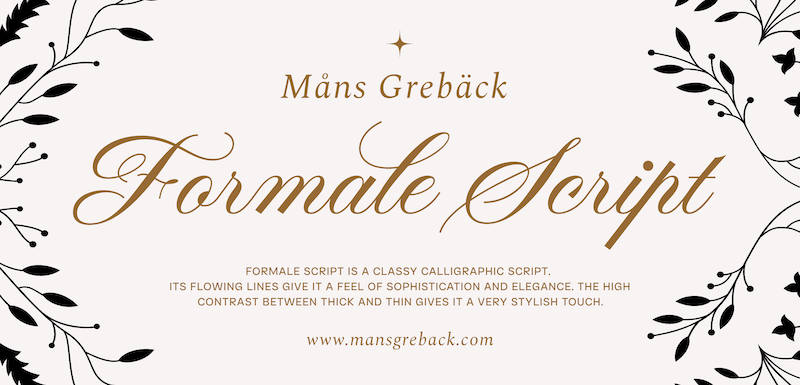
Preview and download Formale Script Font. Created by Måns Grebäck in Script Calligraphy styles with Free for personal use license.
Font name: | Formale Script |
NOTE: This font is for PERSONAL USE ONLY! To purchase a commercial license, visit: https://www.mansgreback.com/product/formale-script Formale Script is a classy calligraphic script. Its flowing lines give it a feel of sophistication and elegance. The high contrast between thick and thin gives it a very stylish touch. Imagine the words in the titles of a black-and-white vintage movie or as the lettering on a fancy wine bottle. For questions, please visit https://mansgreback.com/faq |